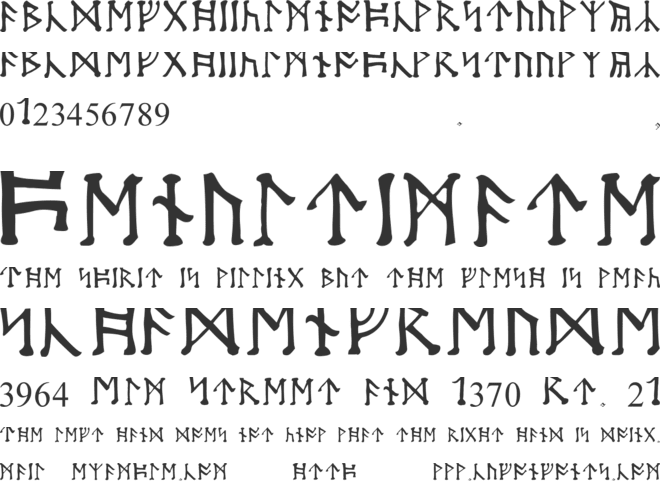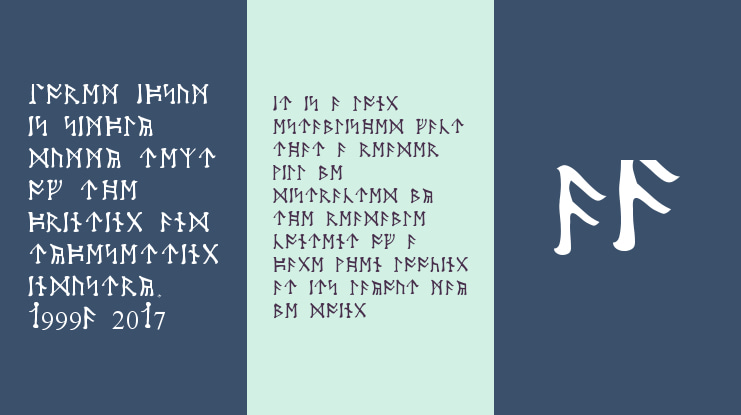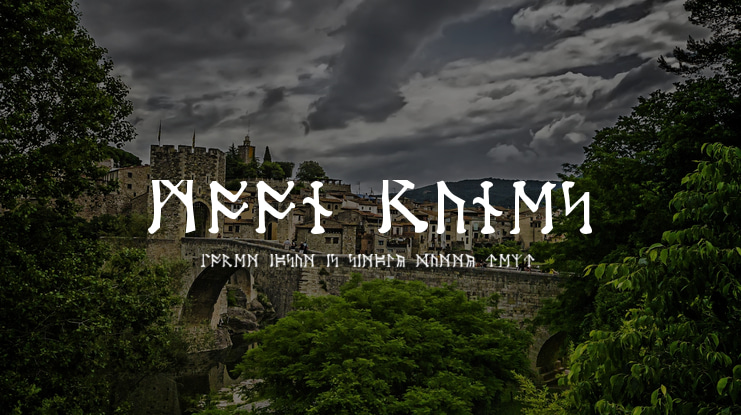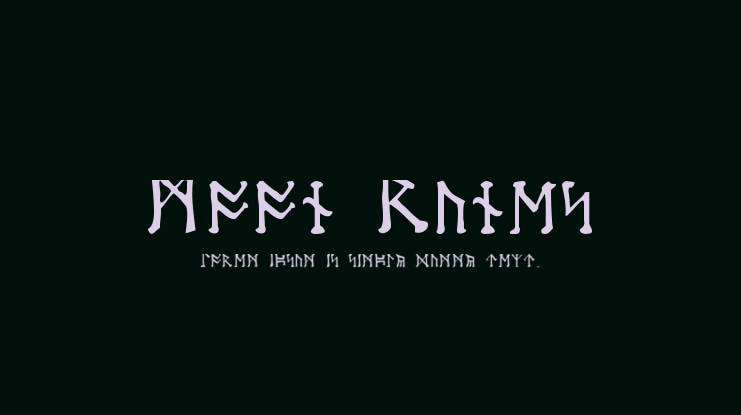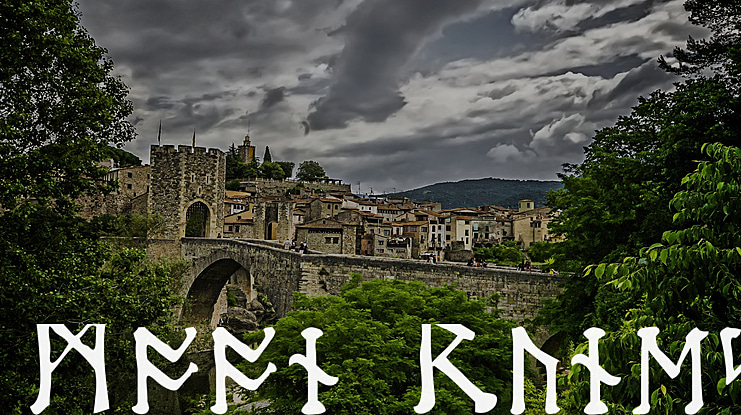
Moon Runes Font
This TrueType-font was created in 1995 by Morten Bek.
It is supposed to resemble the writings on the maps from The Hobbit, by
J.R.R.Tolkien.
Note that this is _not_ the Cirth (Certhar) but the letters used on the cover
of The Hobbit.